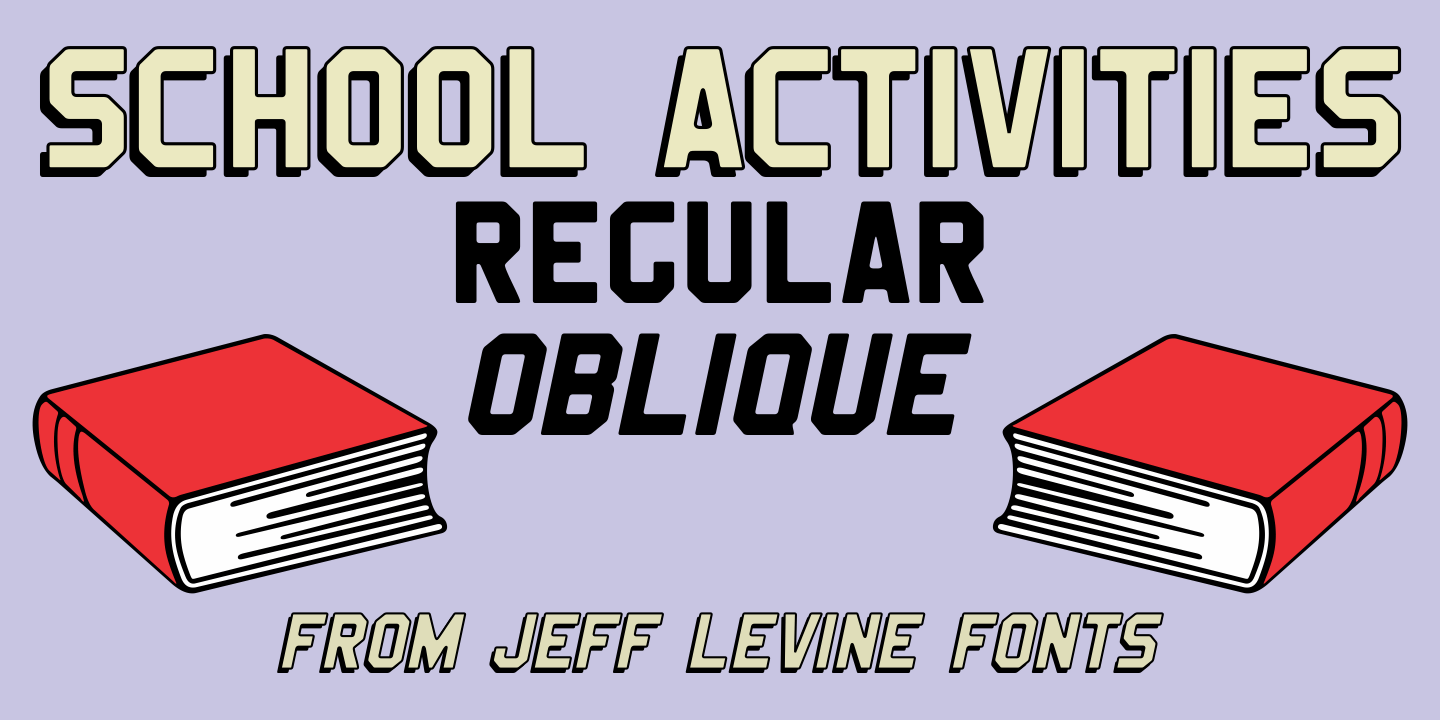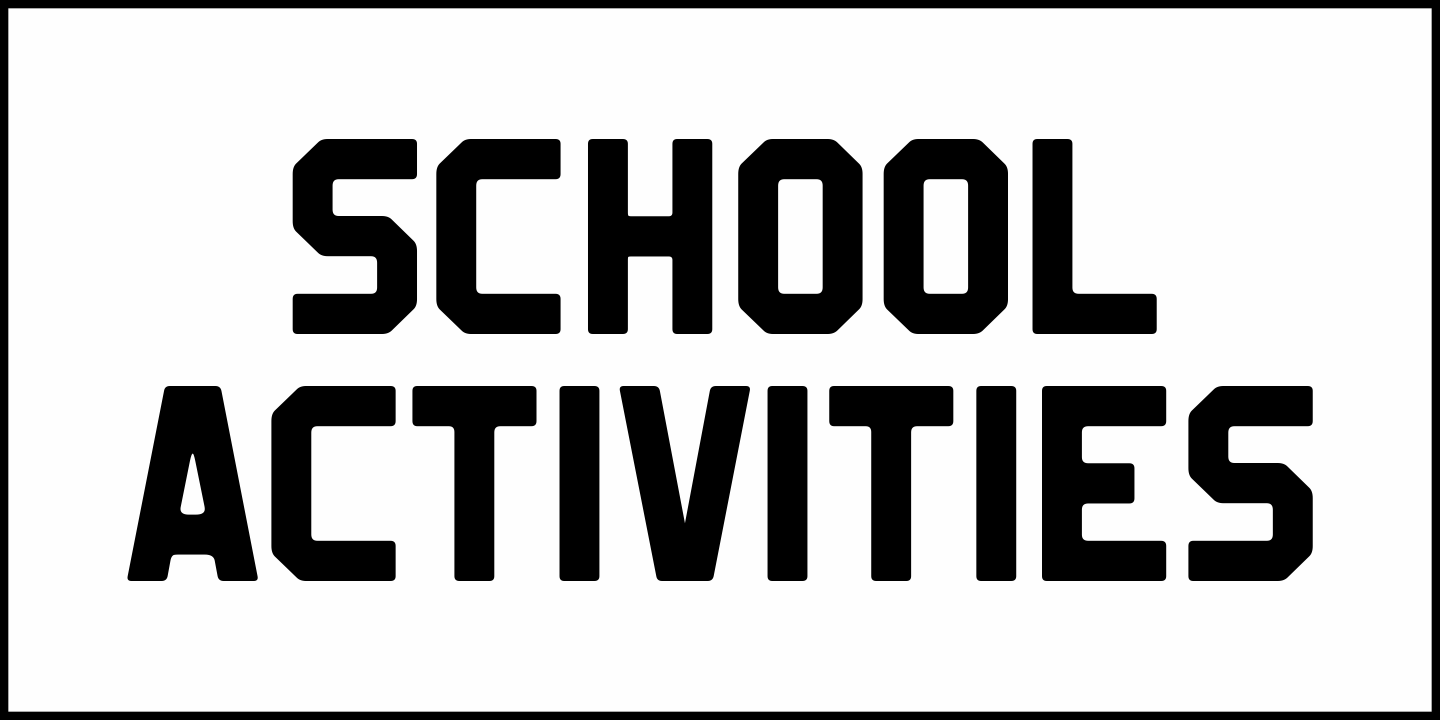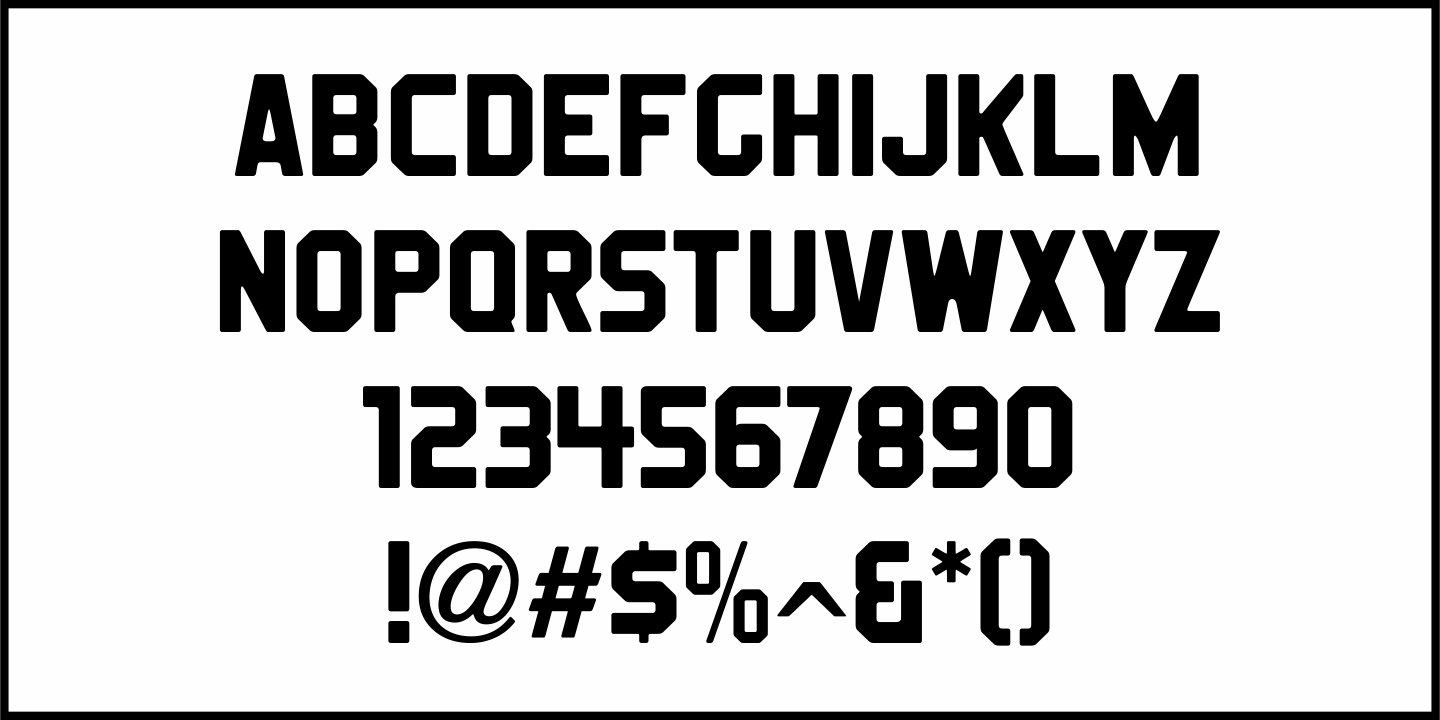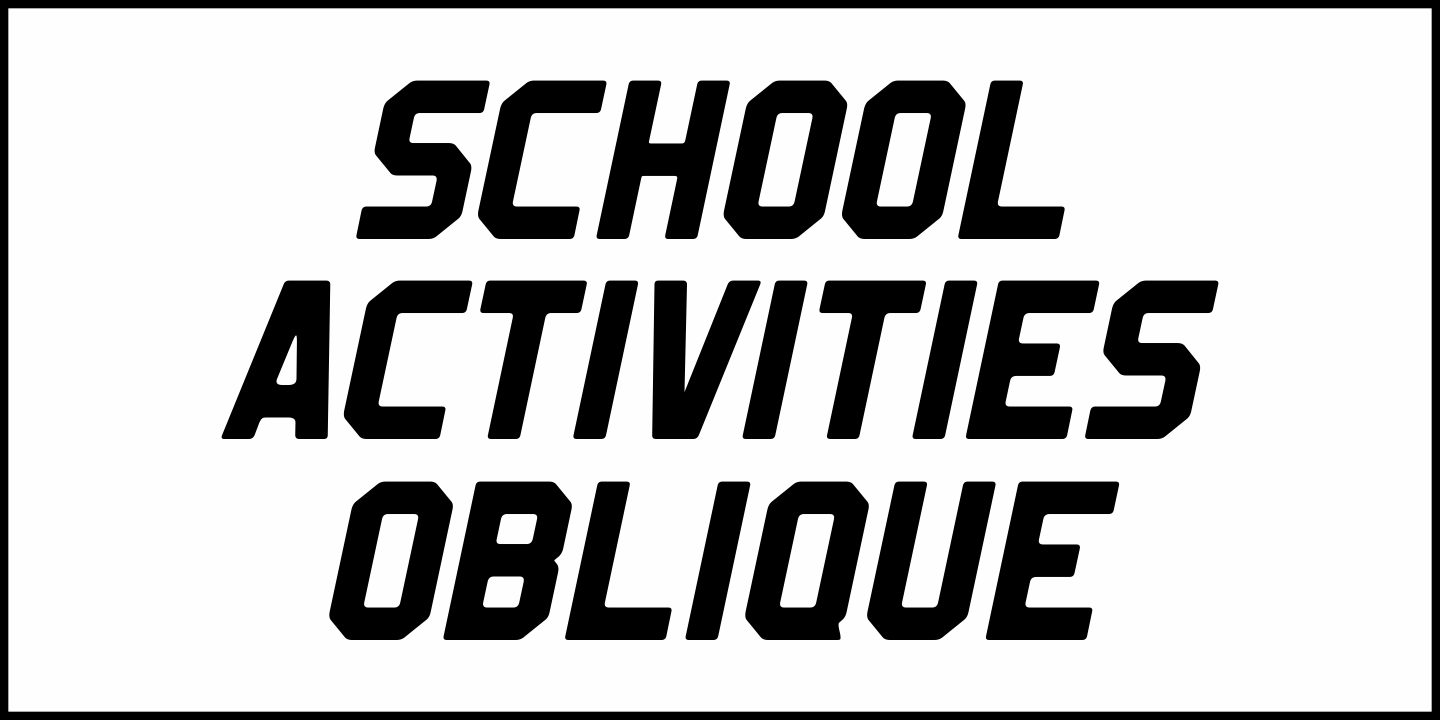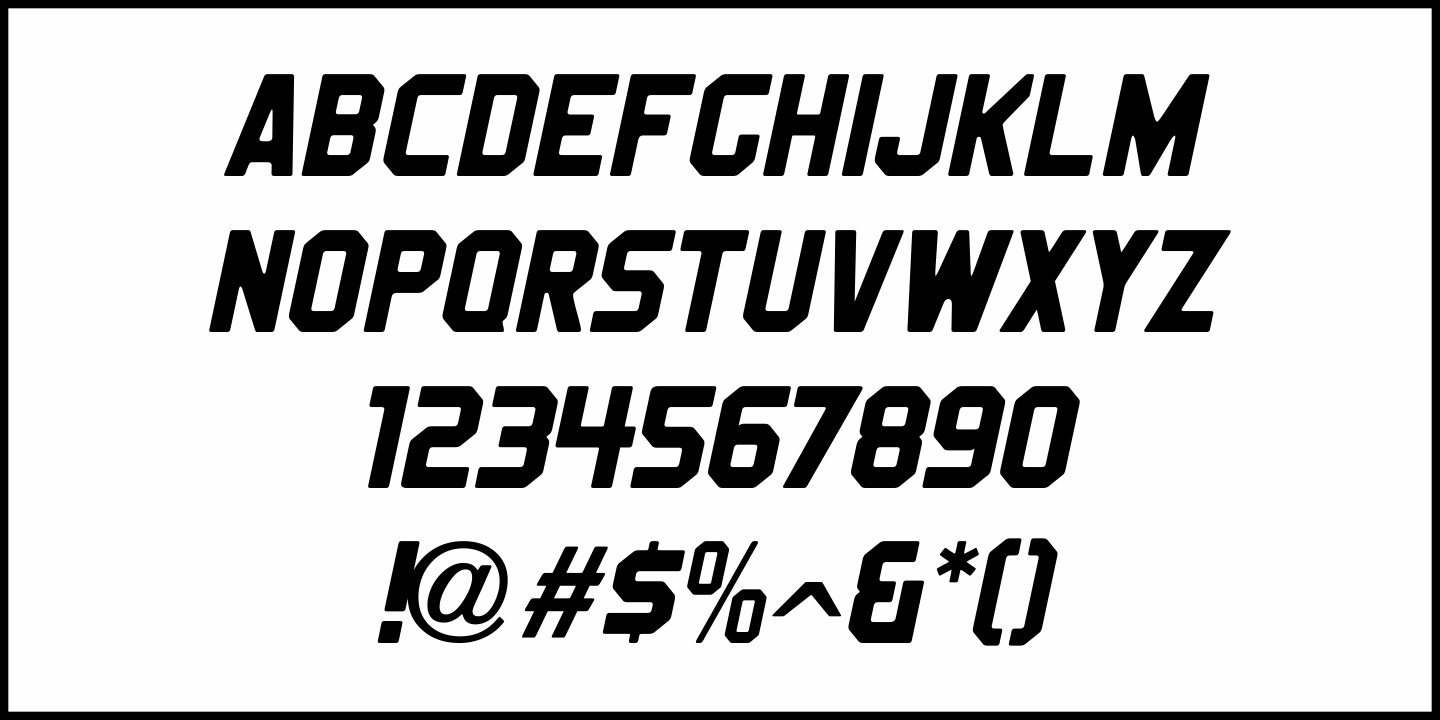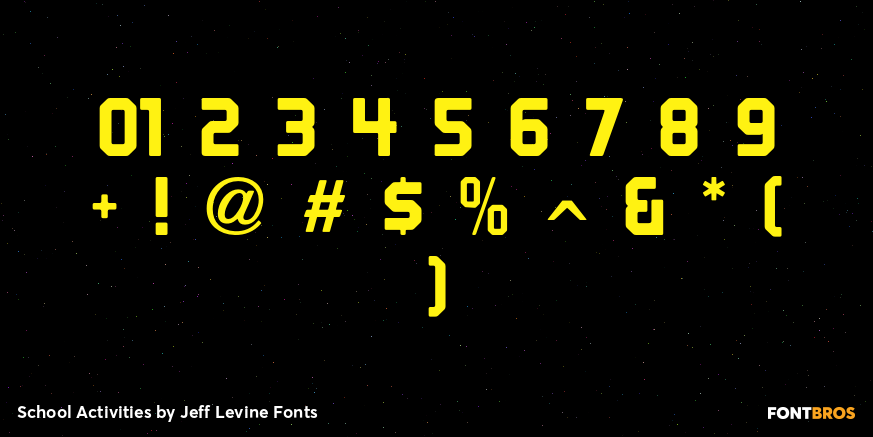
School Activities
Buy NowAn image spotted in an online auction online of a 1940 Milton Bradley child's activity set consisting of wooden letters formed the basis for School Activities JNL, which is available in both regular and oblique versions.
Although the basic characters feature chamfered corners, the nature of bending the steel rule dies to form the letters to be cut from the wood provided rounded edges as well, creating their unique look.